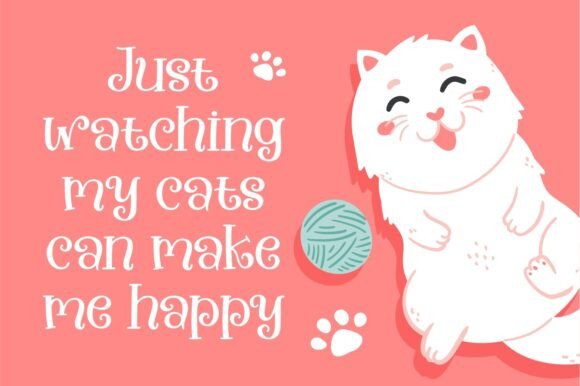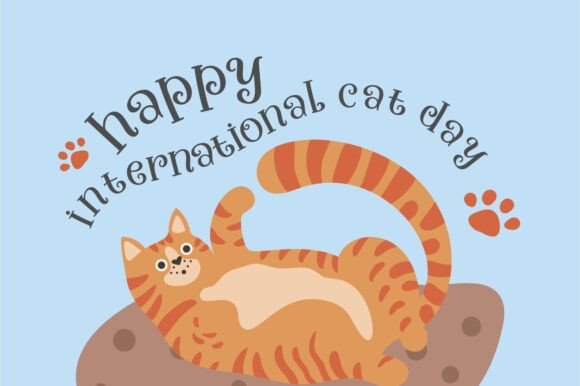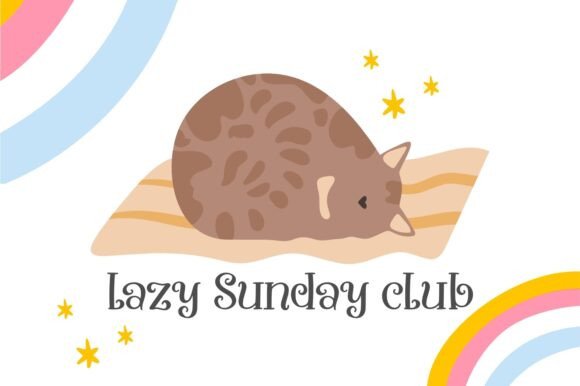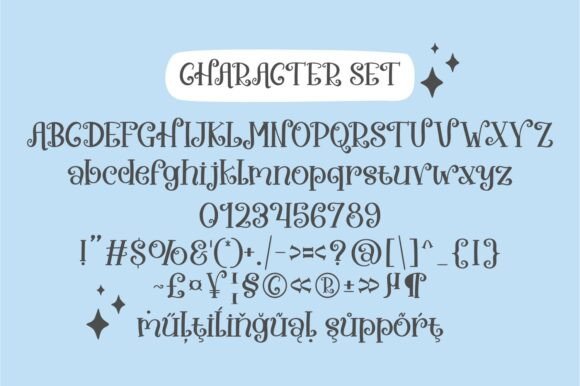
Introducing Cutie Meow: The Playful Hand-Drawn Font for Creative Projects
Are you tired of using the same old fonts for your design projects? Look no further than Cutie Meow, a charming hand-drawn curly font that’s full of personality and fun! With its playful swirls and delightful design, Cutie Meow is perfect for adding a touch of whimsy to kids’ projects, pet-themed graphics, invitations, quotes, and more.
What Makes Cutie Meow Special?
Cutie Meow is a unique and creative font that’s sure to make your designs stand out. Its hand-drawn curly design gives it a playful and charming feel that’s perfect for projects that require a touch of fun and personality. Whether you’re working on a kids’ party invitation, a pet-themed graphic, or a social media post, Cutie Meow is the perfect choice.
Perfect for Kids’ Projects
Kids’ projects require a font that’s fun, playful, and engaging. Cutie Meow fits the bill perfectly. Its curly and swirly design is sure to delight kids and add a touch of magic to any project. Whether you’re creating a birthday party invitation, a kids’ book, or a educational resource, Cutie Meow is the perfect choice.
Pet-Themed Graphics
Pet-themed graphics require a font that’s fun, playful, and adorable. Cutie Meow is the perfect choice for pet-themed graphics, with its curly and swirly design that’s sure to delight pet lovers of all ages. Whether you’re creating a pet adoption poster, a pet store flyer, or a social media post, Cutie Meow is the perfect choice.
Multilingual Support
Cutie Meow offers multilingual support, making it the perfect choice for designers and crafters who work with clients from all over the world. Whether you’re creating a design for a client who speaks English, Spanish, French, or any other language, Cutie Meow has got you covered.
Adding a Whimsical Touch to Your Designs
Cutie Meow is more than just a font – it’s a design element that can add a whimsical touch to any project. Its playful swirls and delightful design make it perfect for adding a touch of personality to invitations, quotes, and more. Whether you’re creating a wedding invitation, a birthday party invitation, or a social media post, Cutie Meow is the perfect choice.
Tips for Using Cutie Meow
Here are some tips for using Cutie Meow in your designs:
- Use Cutie Meow for headings and titles to add a touch of personality to your designs.
- Pair Cutie Meow with a simple font for body text to create a beautiful contrast.
- Use Cutie Meow for social media posts to add a touch of whimsy and personality.
Cutie Meow is a charming hand-drawn curly font that’s perfect for designers and crafters who want to add a touch of personality and fun to their designs. With its playful swirls and delightful design, Cutie Meow is perfect for kids’ projects, pet-themed graphics, invitations, quotes, and more. Its multilingual support and whimsical design make it the perfect choice for designers and crafters who want to create unique and engaging designs. So why wait? Let your imagination play with Cutie Meow and see what amazing designs you can create!
Design Inspiration
Need some design inspiration? Check out these amazing designs that use Cutie Meow:
- Kids’ party invitations featuring Cutie Meow
- Pet-themed graphics that showcase Cutie Meow
- Social media posts that use Cutie Meow to add a touch of whimsy